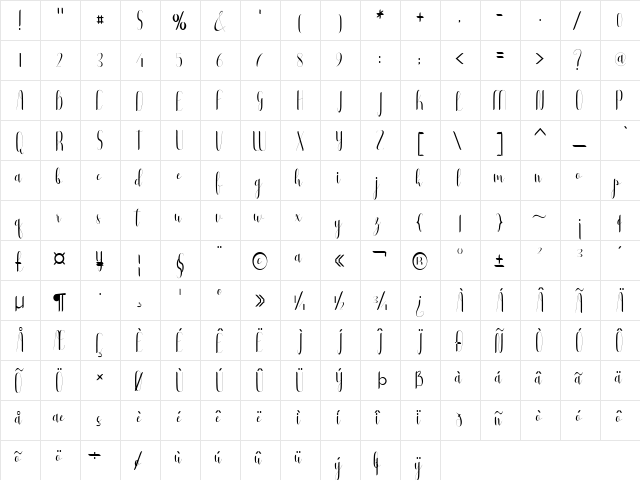
Buffalo Regular
Design Context for Buffalo Typeface
Buffalo is a composed and adaptable typeface that performs quietly and consistently across a wide range of design contexts.
Pro Tip: Pair Buffalo with a font of contrasting weight or personality to build a more expressive typographic hierarchy.